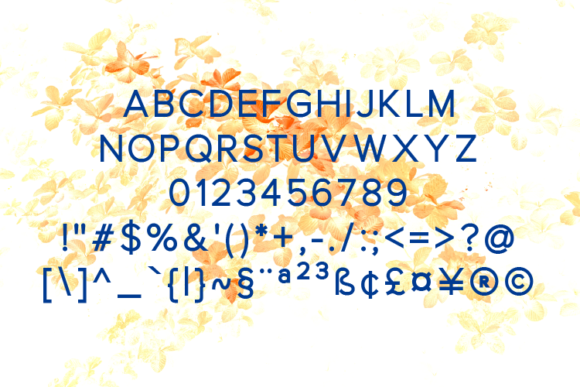
Gerkco Bold Font: Elevate Your Designs with a Modern Twist
In the world of typography, fonts play a crucial role in conveying the message and aesthetic of a design. For designers and crafters looking to add a touch of modernity and elegance to their projects, Gerkco Bold font is an excellent choice. This clean and elegant sans serif font is perfect for creating a wide range of designs, from logos and social media posts to book covers and more.
The Characteristics of Gerkco Bold Font
Gerkco Bold is a sans serif font, which means it doesn’t have the small lines or flourishes at the ends of the letters. This gives it a clean and minimalist look that’s perfect for modern designs. The font’s bold weight makes it highly legible, even at smaller sizes, ensuring that your message gets across clearly and effectively.
One of the standout features of Gerkco Bold is its elegant appearance. The font’s curves and lines are smooth and refined, giving it a sophisticated feel that’s perfect for a wide range of applications. Whether you’re designing a logo for a luxury brand or creating a book cover for a literary fiction novel, Gerkco Bold is a versatile choice that can help elevate your design.
Uses of Gerkco Bold Font
Gerkco Bold font can be used in a variety of design projects, including:
- Logos: Create a lasting impression with a modern and elegant logo that incorporates Gerkco Bold font. The font’s bold weight and clean lines make it perfect for creating logos that are both simple and impactful.
- Social Media Posts: Stand out on social media with eye-catching posts that use Gerkco Bold font. The font’s modern feel and high legibility make it perfect for creating social media posts that grab attention and convey your message clearly.
- Book Covers: Give your book a professional and modern look with Gerkco Bold font. The font’s elegant appearance and bold weight make it perfect for creating book covers that are both sophisticated and eye-catching.
- Business Cards: Create a lasting impression with business cards that use Gerkco Bold font. The font’s clean lines and modern feel make it perfect for creating business cards that are both professional and stylish.
Why Choose Gerkco Bold Font?
There are many fonts available for designers and crafters, but Gerkco Bold stands out for several reasons:
- Modern Feel: Gerkco Bold font has a distinctly modern feel that’s perfect for designers and crafters who want to create designs that are contemporary and stylish.
- High Legibility: The font’s bold weight and clean lines make it highly legible, even at smaller sizes.
- Versatility: Gerkco Bold font can be used in a wide range of design projects, from logos and social media posts to book covers and more.
- Elegant Appearance: The font’s smooth curves and refined lines give it an elegant appearance that’s perfect for creating sophisticated designs.
Tips for Using Gerkco Bold Font
Here are some tips for getting the most out of Gerkco Bold font:
- Pair it with Other Fonts: Gerkco Bold font pairs well with other sans serif fonts, as well as serif fonts. Experiment with different font combinations to find the perfect look for your design.
- Use it for Headings: Gerkco Bold font is perfect for headings and titles. Use it to create eye-catching headings that draw attention and convey your message clearly.
- Experiment with Colors: Gerkco Bold font looks great in a variety of colors. Experiment with different colors to find the perfect look for your design.
Gerkco Bold font is a versatile and elegant sans serif font that’s perfect for designers and crafters looking to add a touch of modernity to their designs. With its clean lines, bold weight, and elegant appearance, Gerkco Bold is a great choice for a wide range of design projects. Whether you’re creating a logo, social media post, book cover, or more, Gerkco Bold font is sure to help you create a design that’s both stylish and effective.